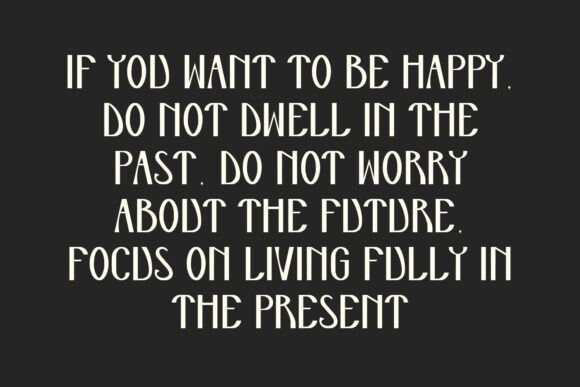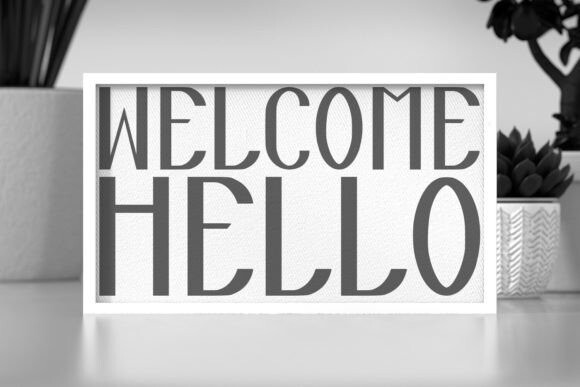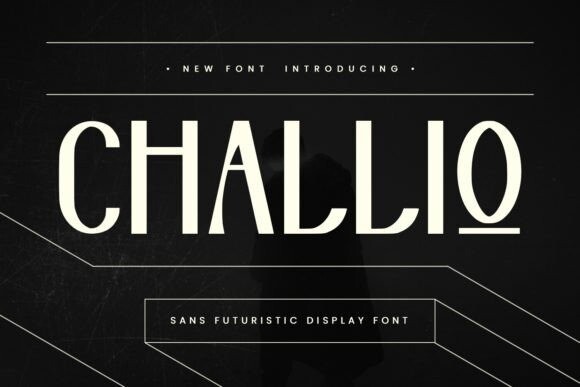
Challio Font
Designer: Maulana Creative
Challio Font is a modern, futuristic display font designed for a bold and sleek look. Its clean lines and sharp edges make it perfect for creating eye-catching titles, logos, or posters. The style gives off a tech-forward, digital vibe, making it ideal for projects related to technology, games, or sci-fi themes.